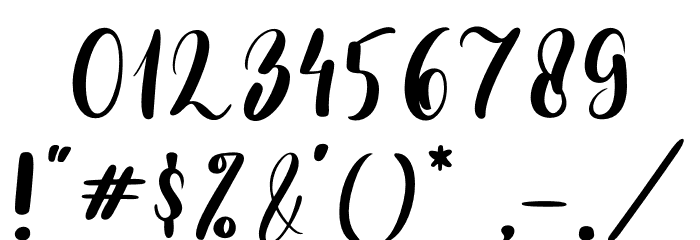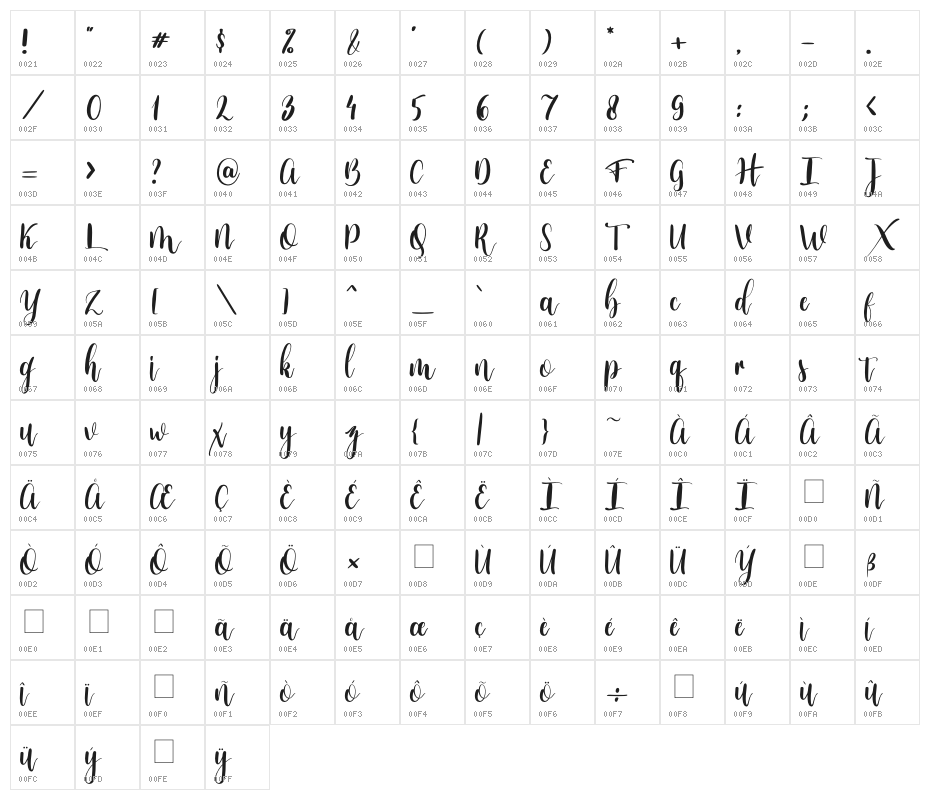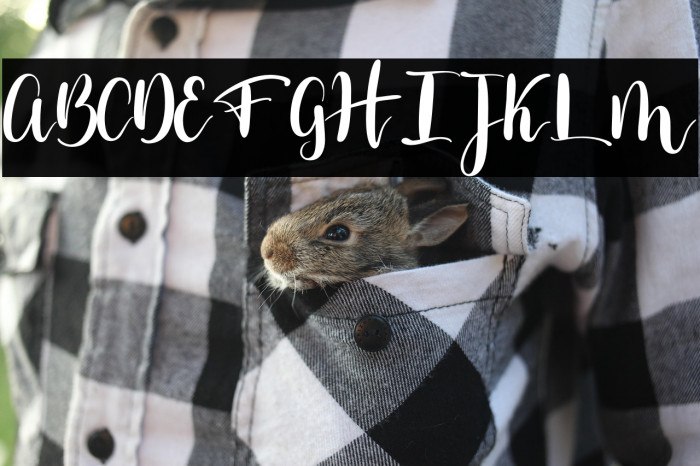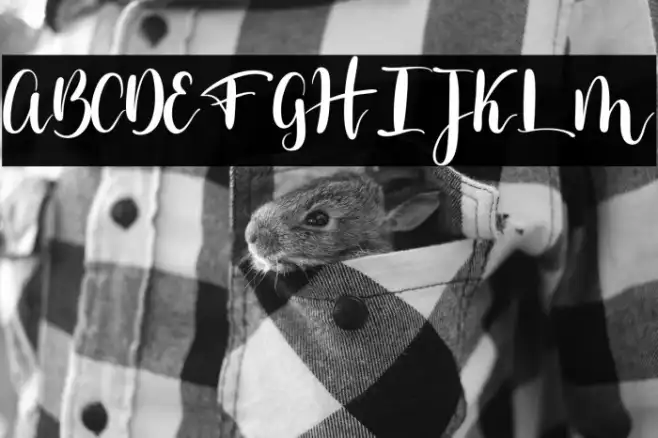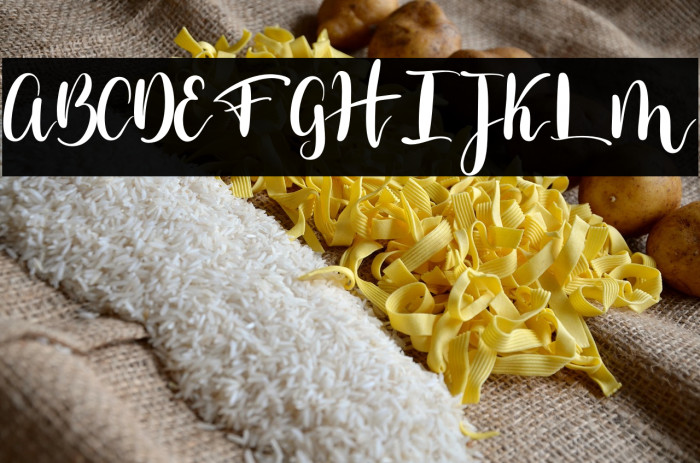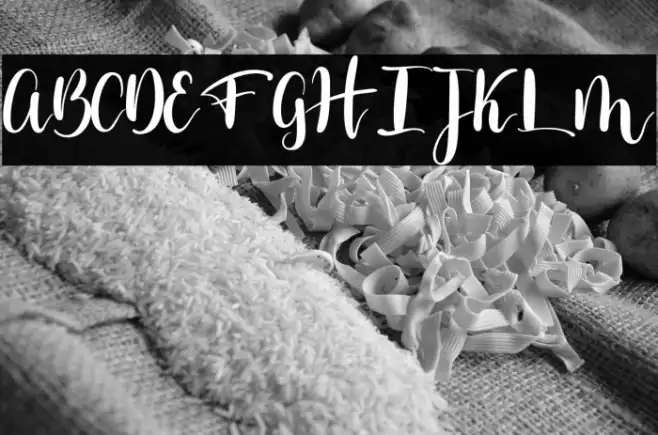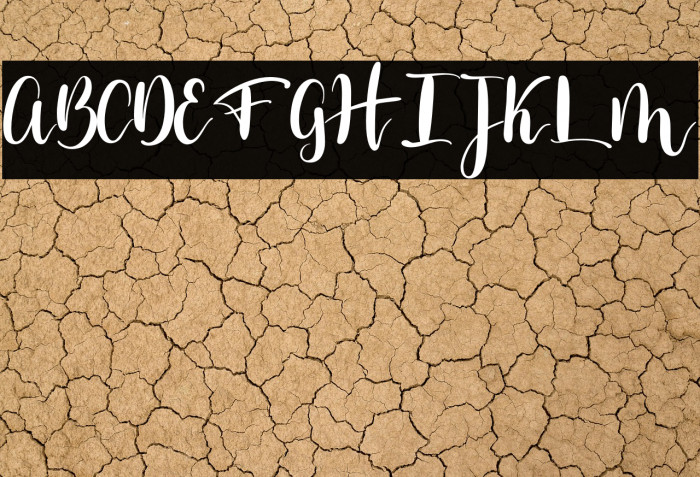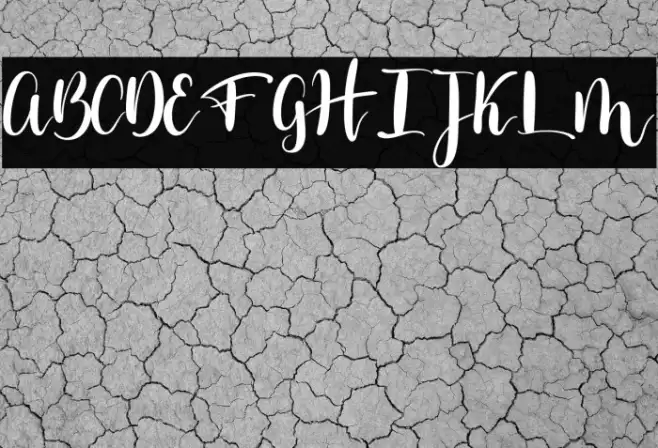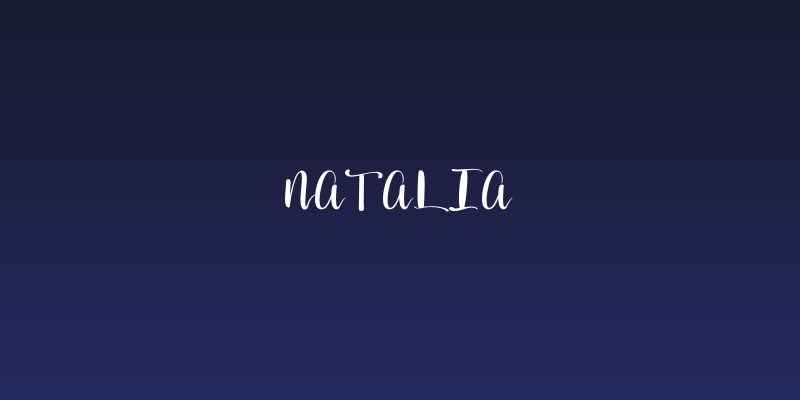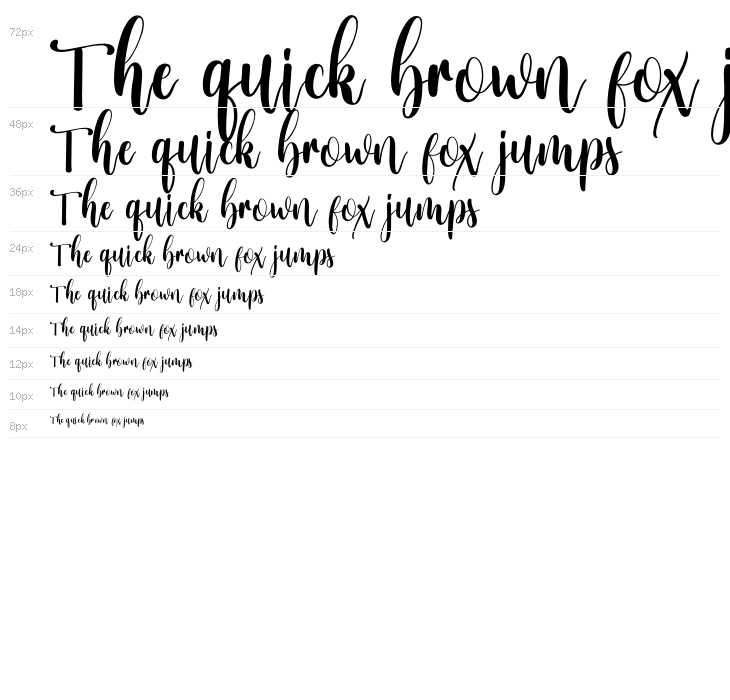
natalia Font
natalia Description
This font is a lively and expressive script with a handwritten feel. The letters are fluid and connected, featuring elegant loops and swashes that give it a dynamic and artistic appearance. The uppercase letters are bold and prominent, while the lowercase letters maintain a consistent flow, enhancing readability. The numerals are stylishly crafted, matching the overall aesthetic of the font. Special characters are thoughtfully designed, adding to the versatility of the font. It exudes a sense of creativity and personal touch, making it suitable for projects that require a personal or artistic flair.